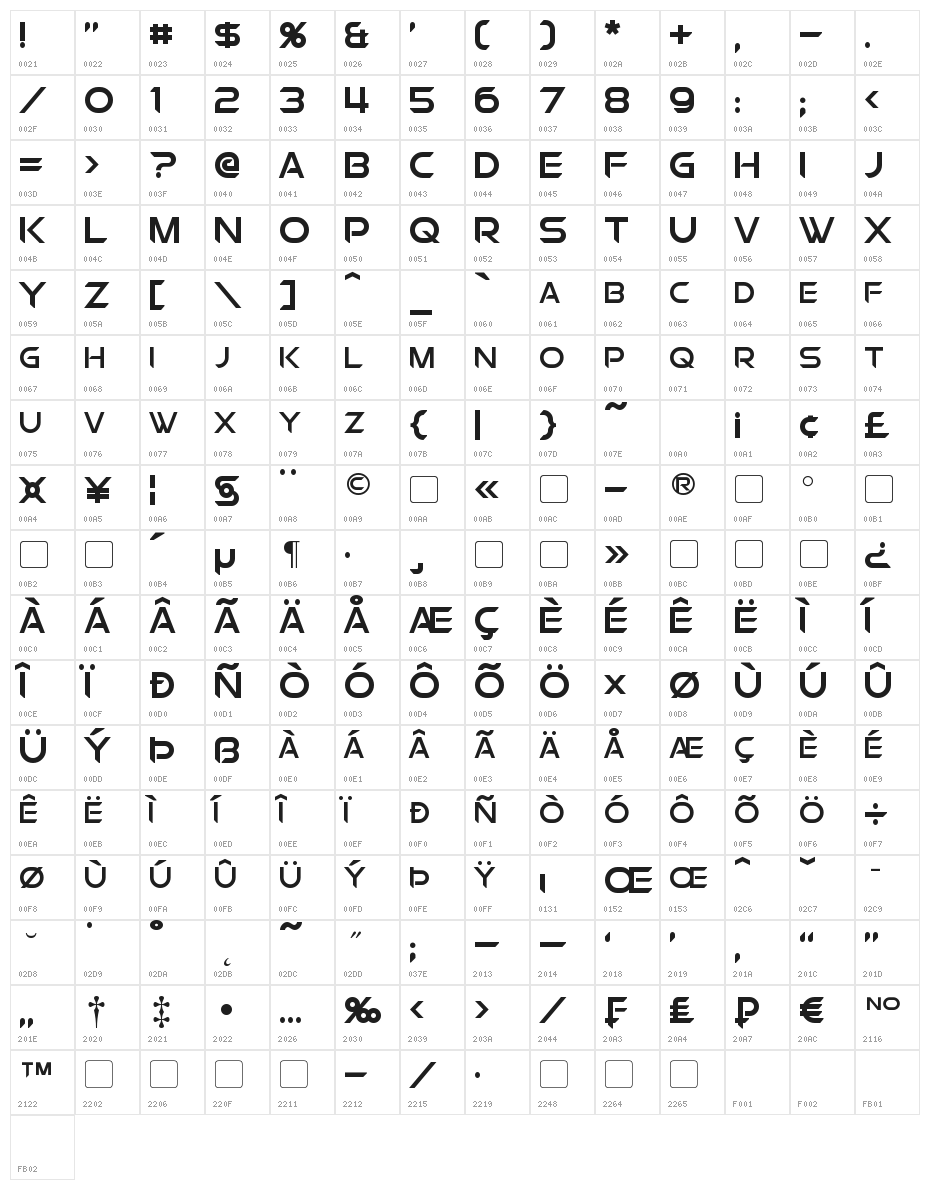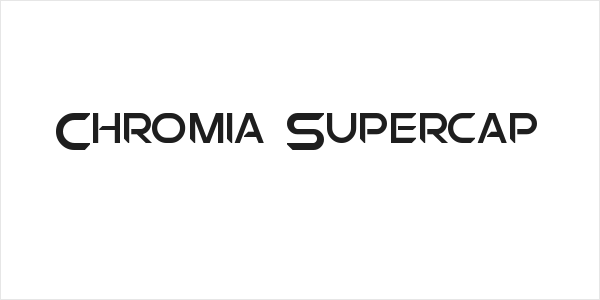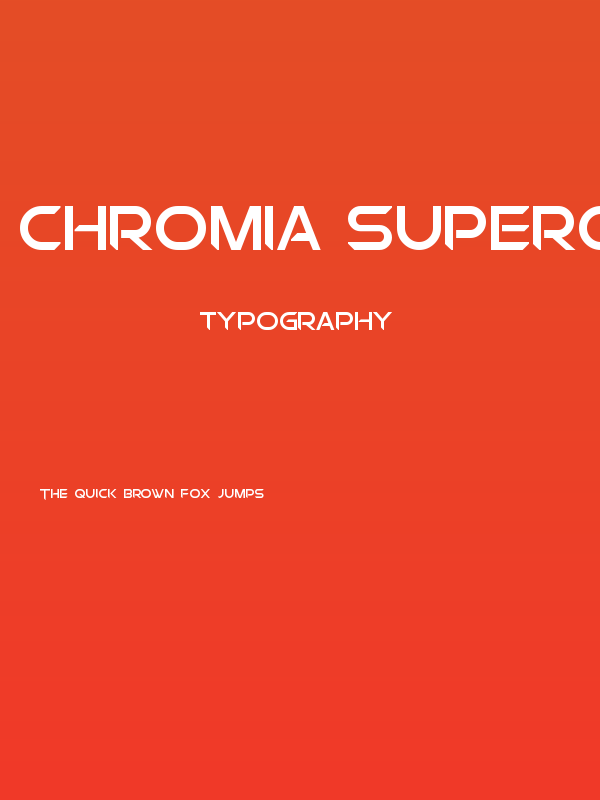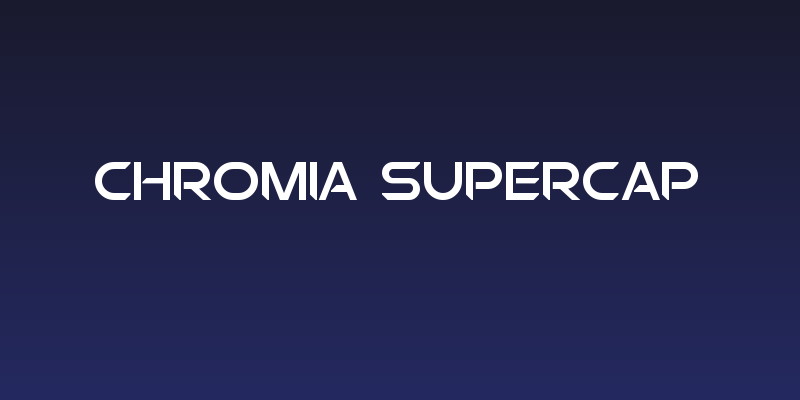
Chromia Supercap Font
Chromia Supercap Description
This font features a futuristic and geometric design with sharp angles and clean lines. The uppercase letters are bold and impactful, making a strong visual statement. The lowercase letters maintain the same geometric style, ensuring consistency across different text elements. The numbers are distinct and easily readable, with a modern flair that complements the overall design. Special characters are well-integrated, adding versatility to the font's usage. The font's style is ideal for projects that require a contemporary and edgy look, such as technology branding, modern advertising, or innovative product packaging.
| Proposed Projects | Ideal for technology branding, modern advertising, and innovative product packaging. |